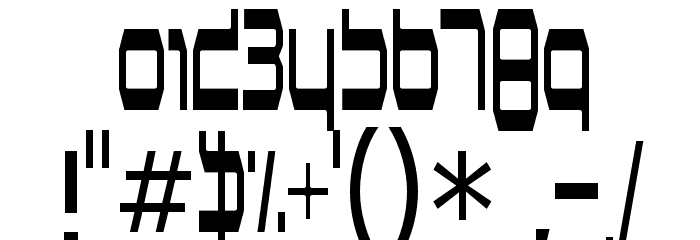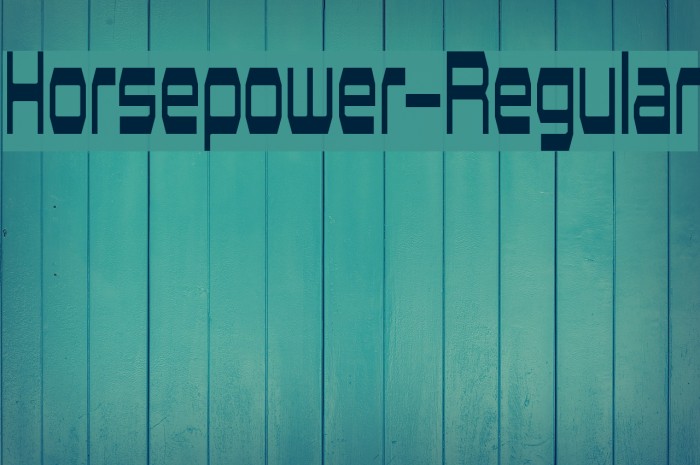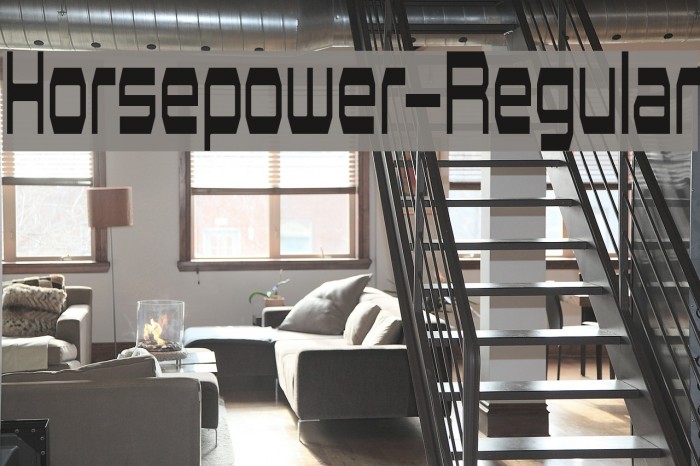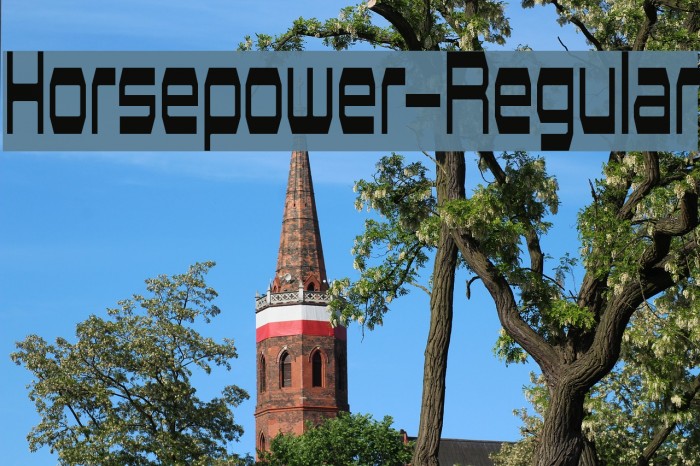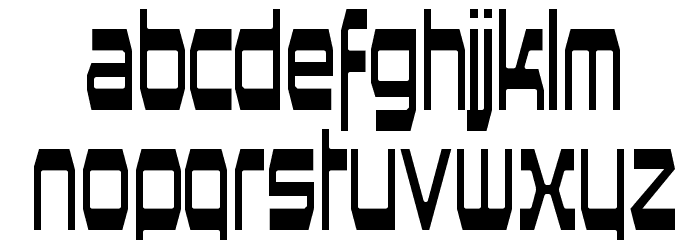
Horsepower-Regular Font
Horsepower-Regular Description
This font features a bold, geometric design with a futuristic and industrial feel. The characters are constructed with sharp angles and straight lines, giving it a mechanical and robust appearance. The uppercase letters are particularly striking, with a blocky and compact form that conveys strength and stability. The lowercase letters maintain the same angular style, ensuring consistency throughout the typeface. Numbers and special characters are designed to match the overall aesthetic, making this font suitable for a variety of applications where a modern and edgy look is desired.
A bold, geometric font with a futuristic and industrial style from Uncategorized fonts.
- Proposed Projects: Ideal for use in technology branding, automotive designs, video game titles, and sci-fi themed projects.